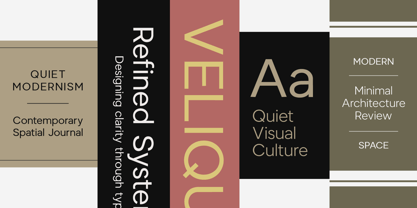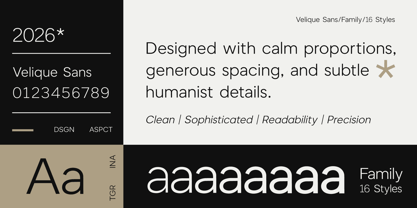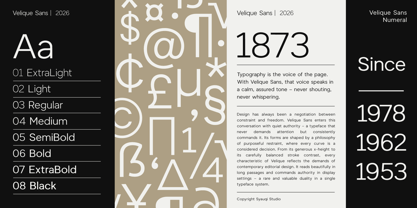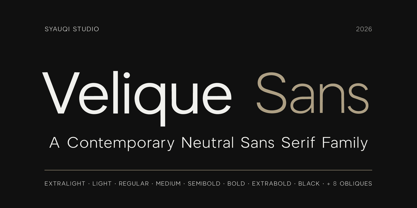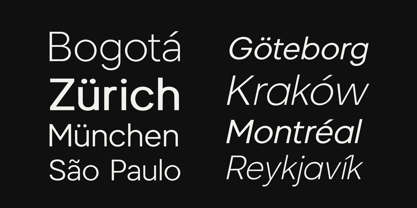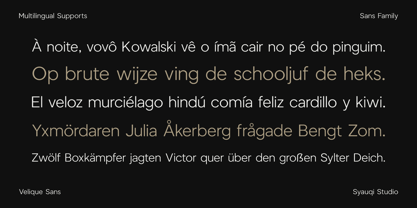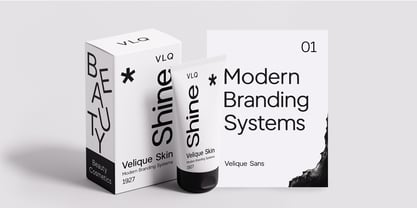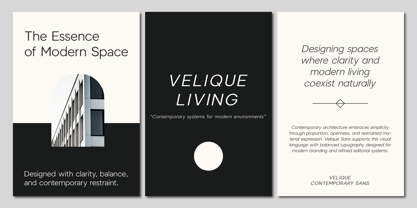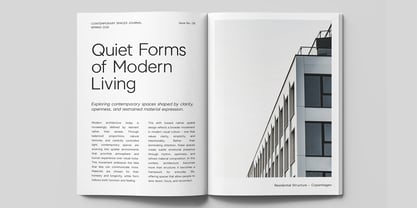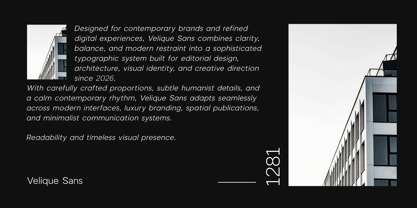
Velique Sans
The Velique Sans Font Family was designed by Muhammad Asroful Umam and published by Syauqi Studio. Velique Sans contains 16 styles and family package options. More about this family
Velique Sans — Contemporary Neutral Sans Serif
Velique Sans is a contemporary neutral sans serif designed for modern branding, editorial systems, and refined digital interfaces. Built with calm proportions, balanced spacing, and subtle humanist details, the typeface delivers a clean and sophisticated visual voice while maintaining excellent readability across both display and text settings.
Rather than following rigid neo-grotesk conventions, Velique introduces a quieter contemporary tone — combining precision with warmth through open forms, smooth optical construction, and carefully refined rhythm. The result is a versatile sans serif that feels modern, polished, and approachable without becoming mechanical.
Designed to perform across a wide range of visual applications, Velique adapts naturally to branding systems, editorial layouts, websites, packaging, presentations, UI/UX interfaces, and luxury-oriented design projects. Its restrained character allows it to work equally well in minimal digital environments and expressive art direction.
Every detail was carefully developed to support professional design use, from balanced contrast and generous spacing to thoughtfully crafted italics that maintain consistency and elegance throughout the family. Whether used in large headlines or smaller text compositions, Velique maintains clarity, stability, and a refined contemporary presence.
The family includes multilingual support, professional kerning, punctuation, numerals, and stylistic consistency optimized for both print and digital environments.
Perfect for contemporary branding, editorial typography, creative agencies, fashion and lifestyle identities, premium packaging, modern websites, and refined visual systems, Velique Sans brings together neutrality, elegance, and versatility in a modern sans serif family designed for today’s visual culture.